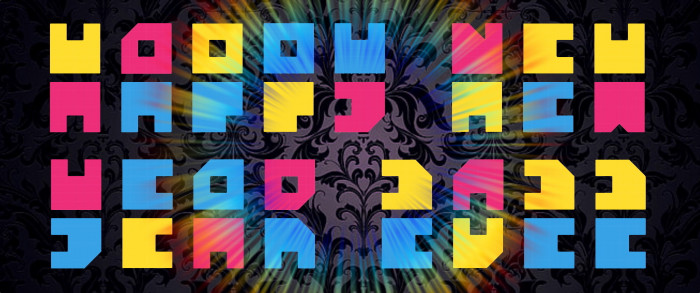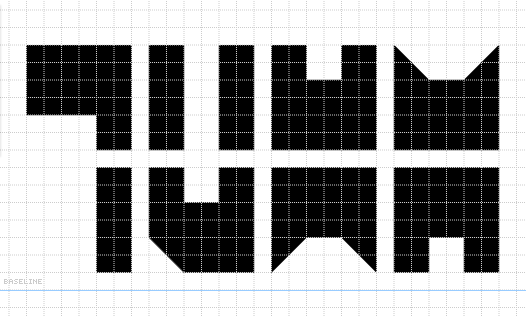
• An old idea from the early 2010 put in their original colours. The lowercase repeats the same coloration from the uppercase changing the position to improve the artistic view of the typing words changing some letters. Just a silly font, enjoy it please. And Happy New Year 2022!
An old idea from the early 2010 put in their original colours. The lowercase repeats the same coloration from the uppercase changing the position to improve the artistic view of the typing words changing some letters. Just a silly font, enjoy it please. And Happy New Year 2022!
@elmoyenique - Congratulations on the well-deserved top pick; the colors definitely enhance this style when you only have 18 bricks to employ (9 top / 9 bottom).  The L/l and 7 are a little hard to distinguish; perhaps the top of the L/l should be its bottom, and the bottom of the 7 be straight?  This would balance out the legibility (at least to me).  Cheers and Happy New Year!
@Goatmeal: Happy New 2022 to you too, compañero! I'm seriously thinking about your suggestions about L and 7. There are also some other "hard to read" letters, like U or W, that I'm working on. Thank you for your always constructive and kind comments once again.
@elmoyenique - OK, here are a few more.  I realize these [might] go against your design style...
• The leg of the 7 looked too chunky and could be mistaken for a numeral 1, so it's more narrow here to set it apart.
• Your design has a single, unified piece at the top and bottom, but my U has two  separated parts at the top.
• Your design also does not use/rely on "pointy" ends, but here is a W (and alternate M).
A few modifications added in L, M, U, W, l, m, u, w & 7.
Makes me think of Omega Mart
subtractive primary, same colors as the pan pride flag!